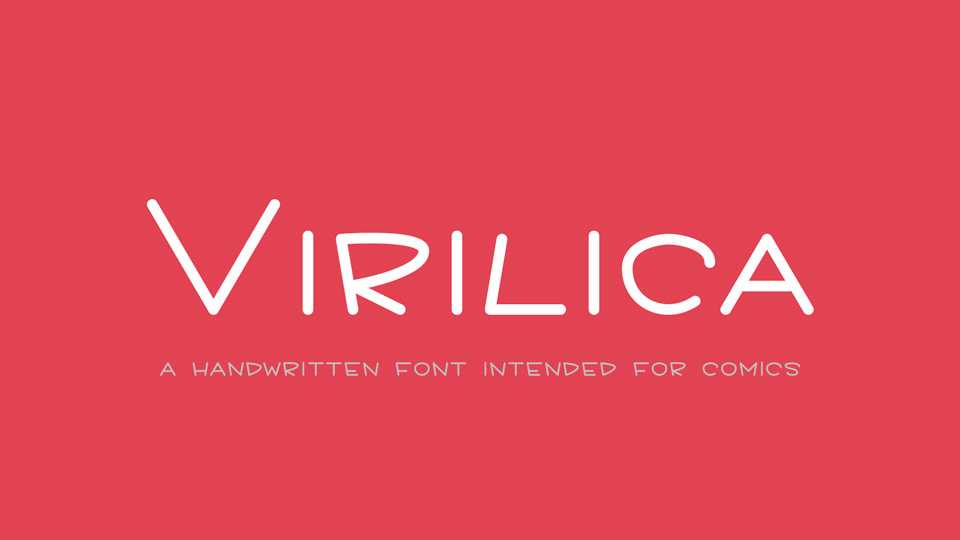
Download Virilica font, a simple and fun handwritten typeface generally intended for comics with Latin and Cyrillic support. Virilica is also great for crafts, notes, quotes and other projects with a natural look.
Designer: Vesko Radic